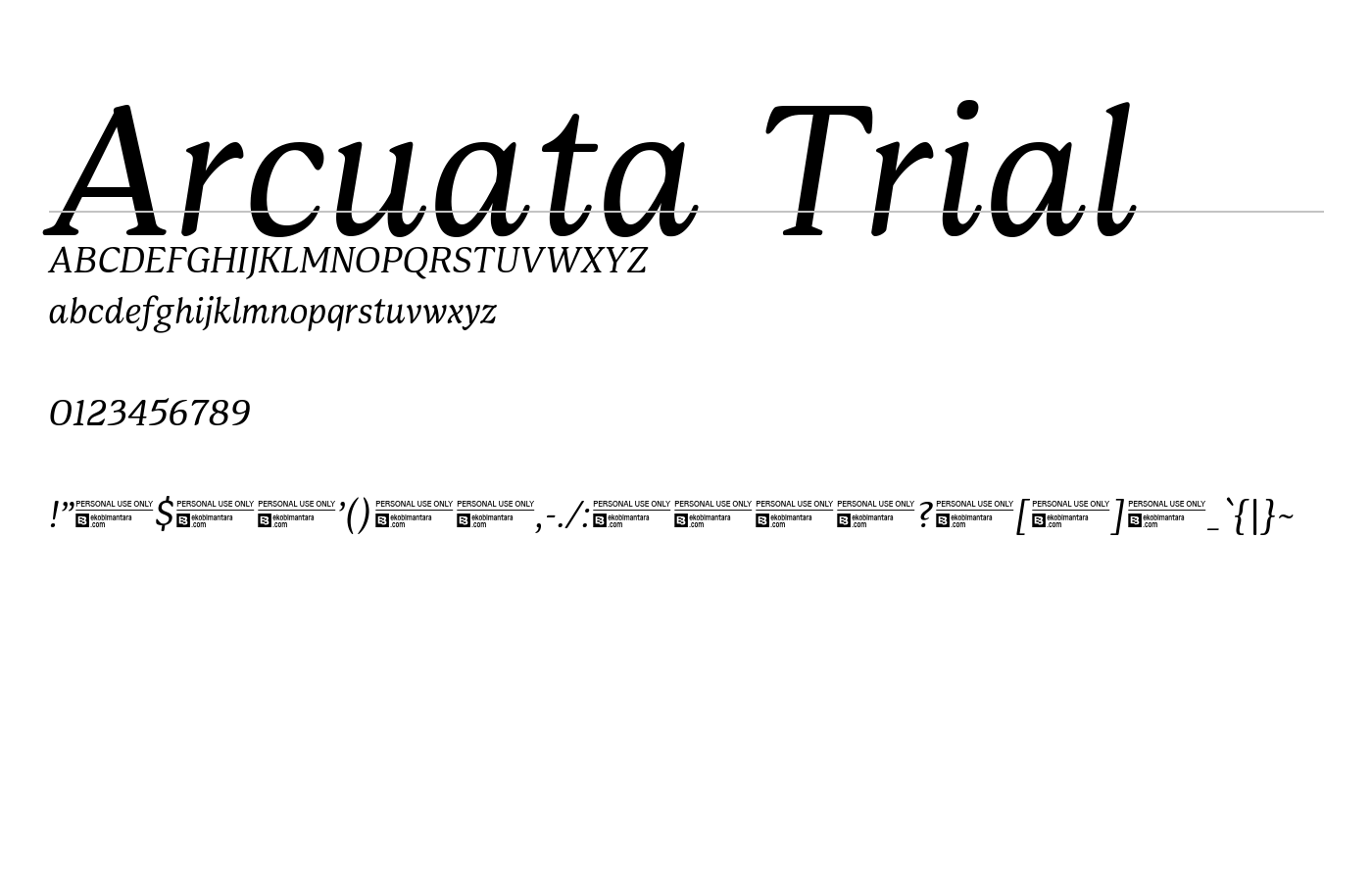
Arcuata Trial is an elegant serif typeface with a classic, transitional style characterized by its moderate stroke contrast and delicate, bracketed serifs. Its slender, slightly condensed letterforms and true italic posture give it a refined and sophisticated feel, making it ideal for formal branding, editorial layouts, and stylish headings. This font’s timeless charm works beautifully in luxury designs and professional contexts where clarity and grace are essential.
Arcuata Trial Font
About Arcuata Trial Font